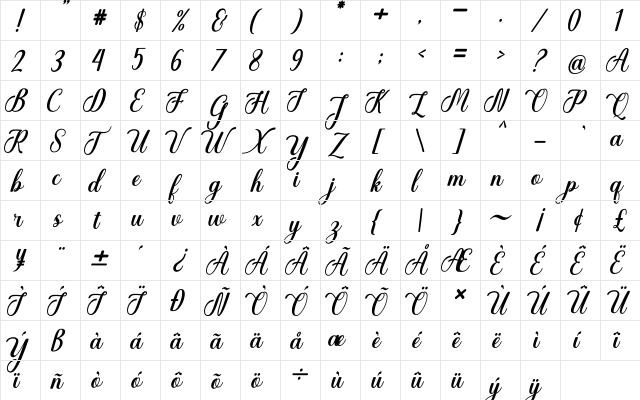
Christmas Glooves Regular
| Foundry | Kong Font |
| Designer | Kong Font |
Design Context for Christmas Glooves Typeface
Christmas Glooves is a composed and adaptable typeface that performs quietly and consistently across a wide range of design contexts.